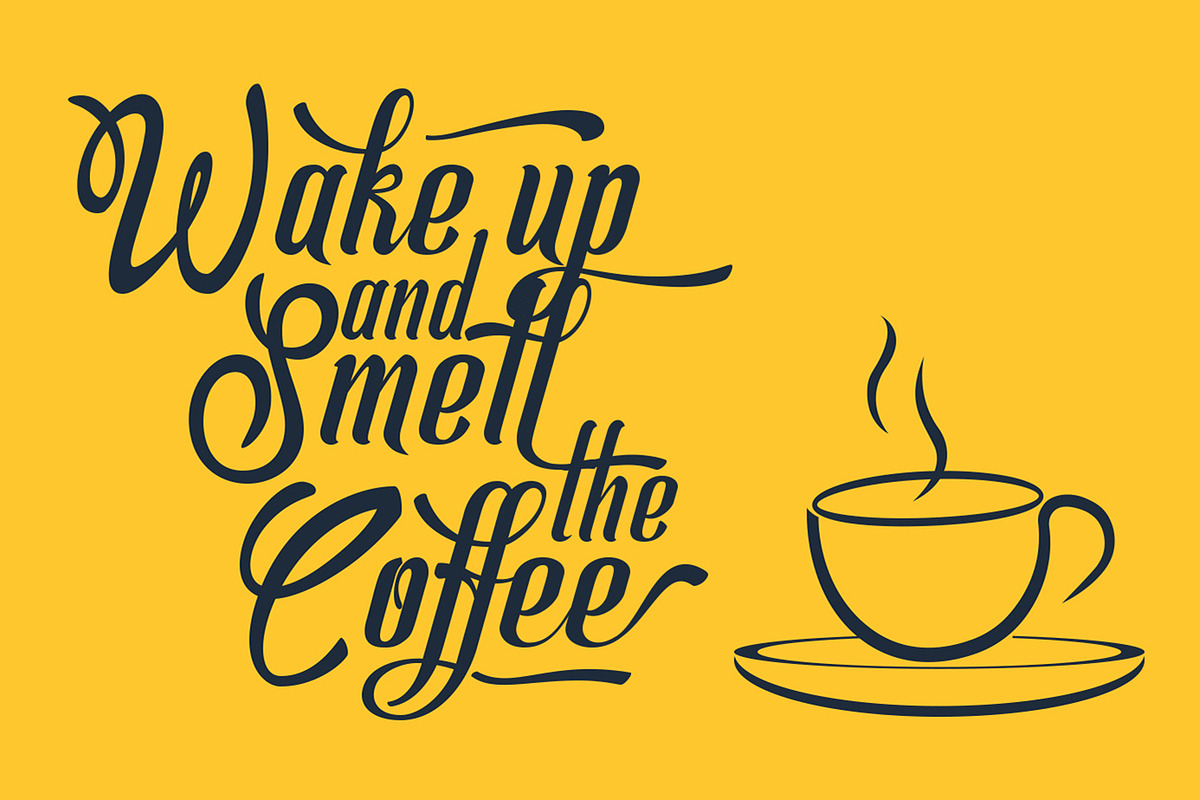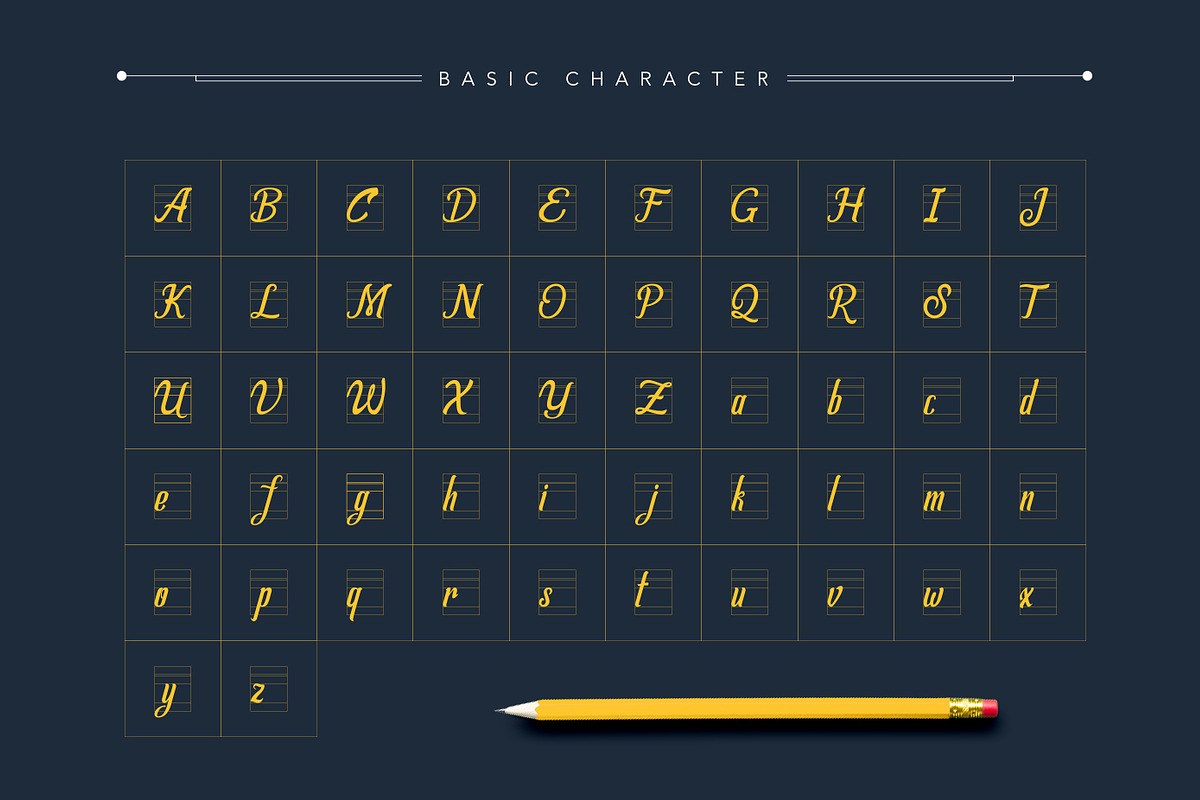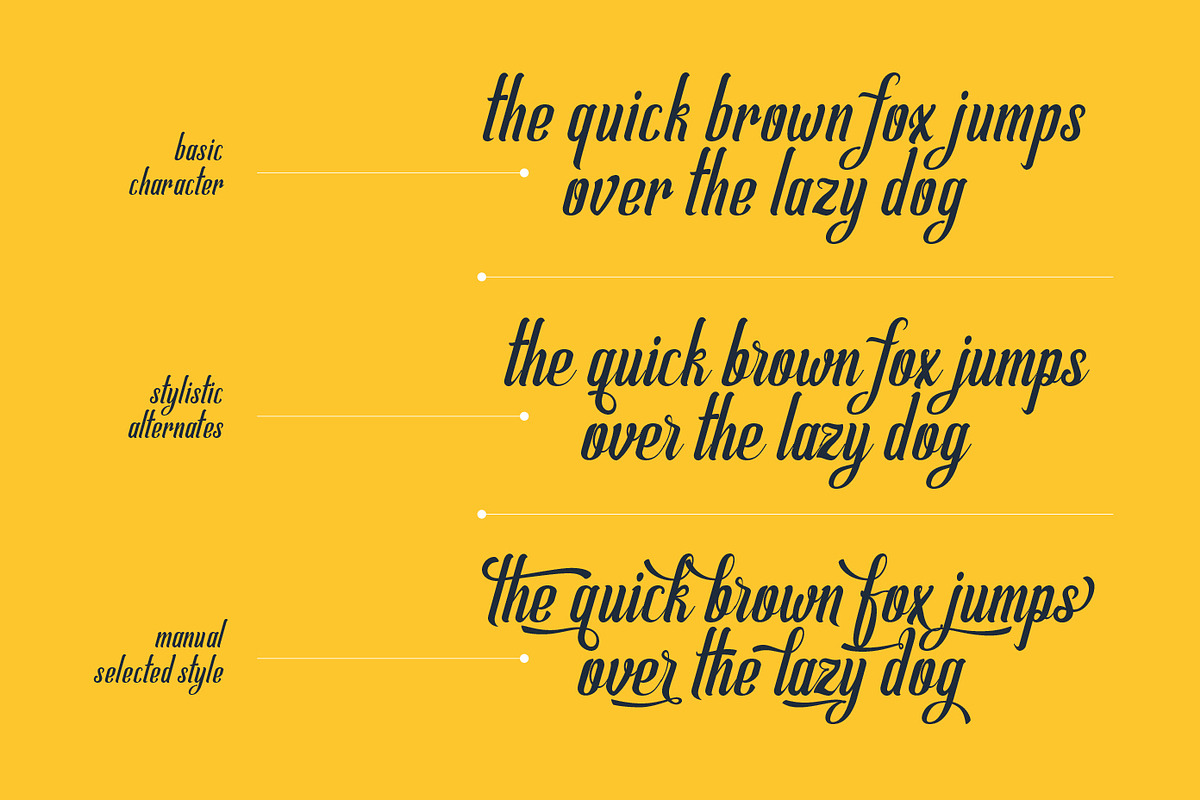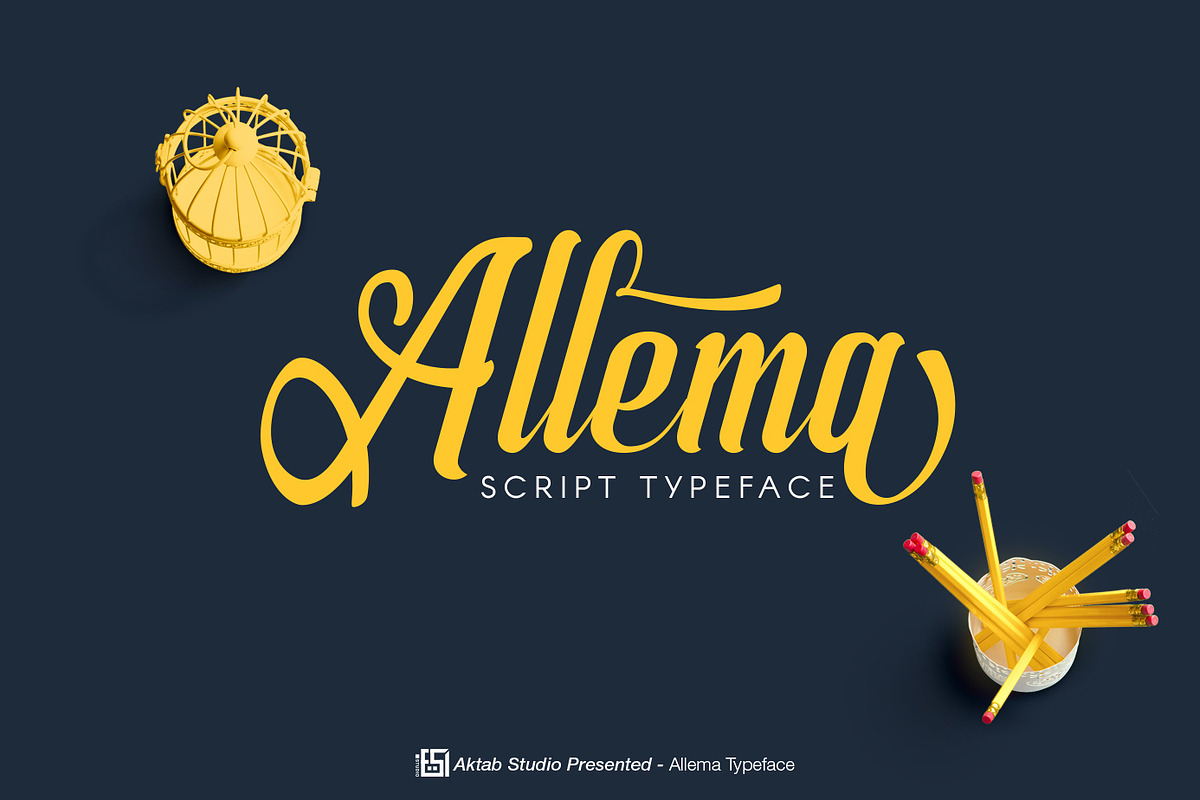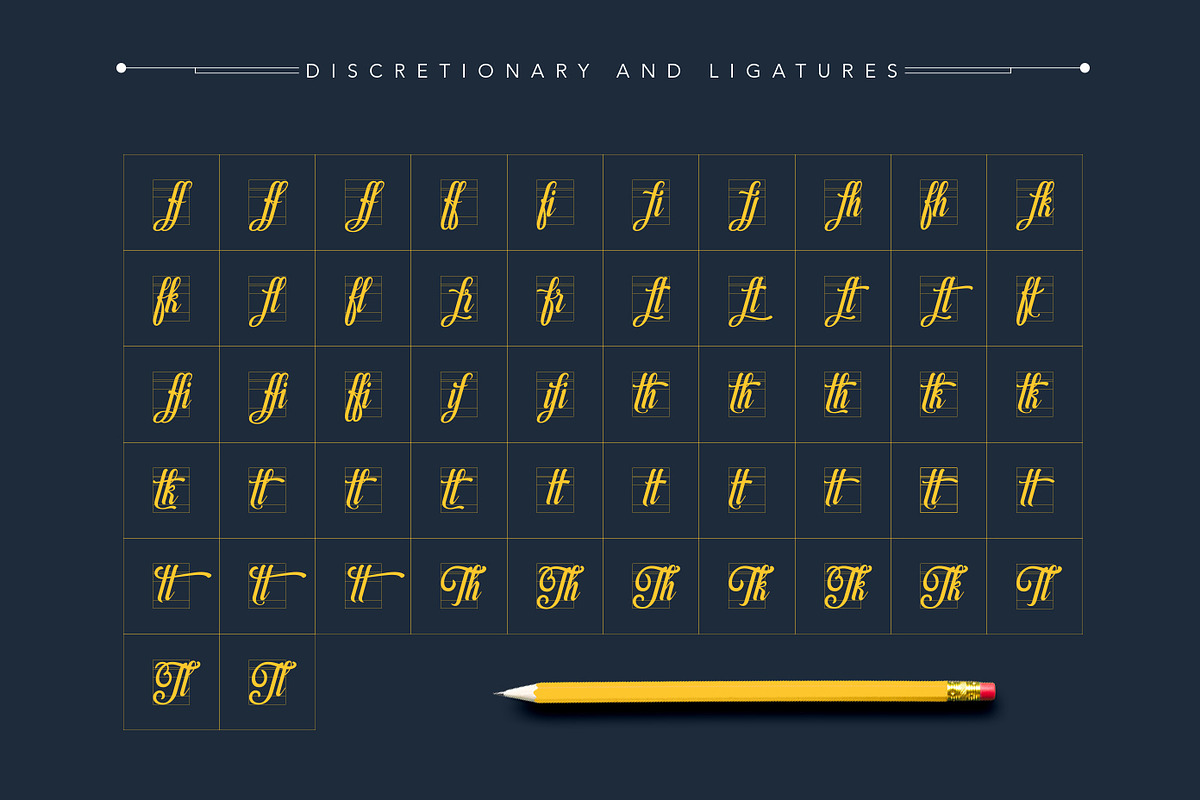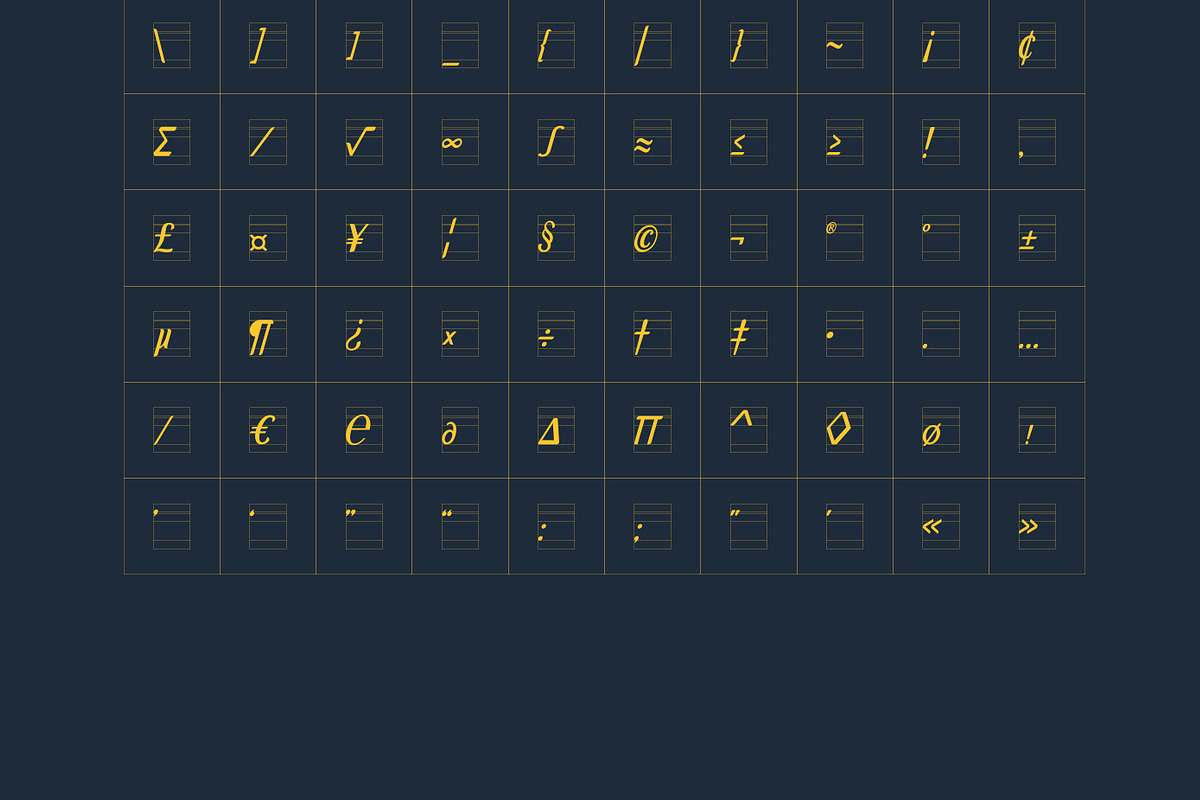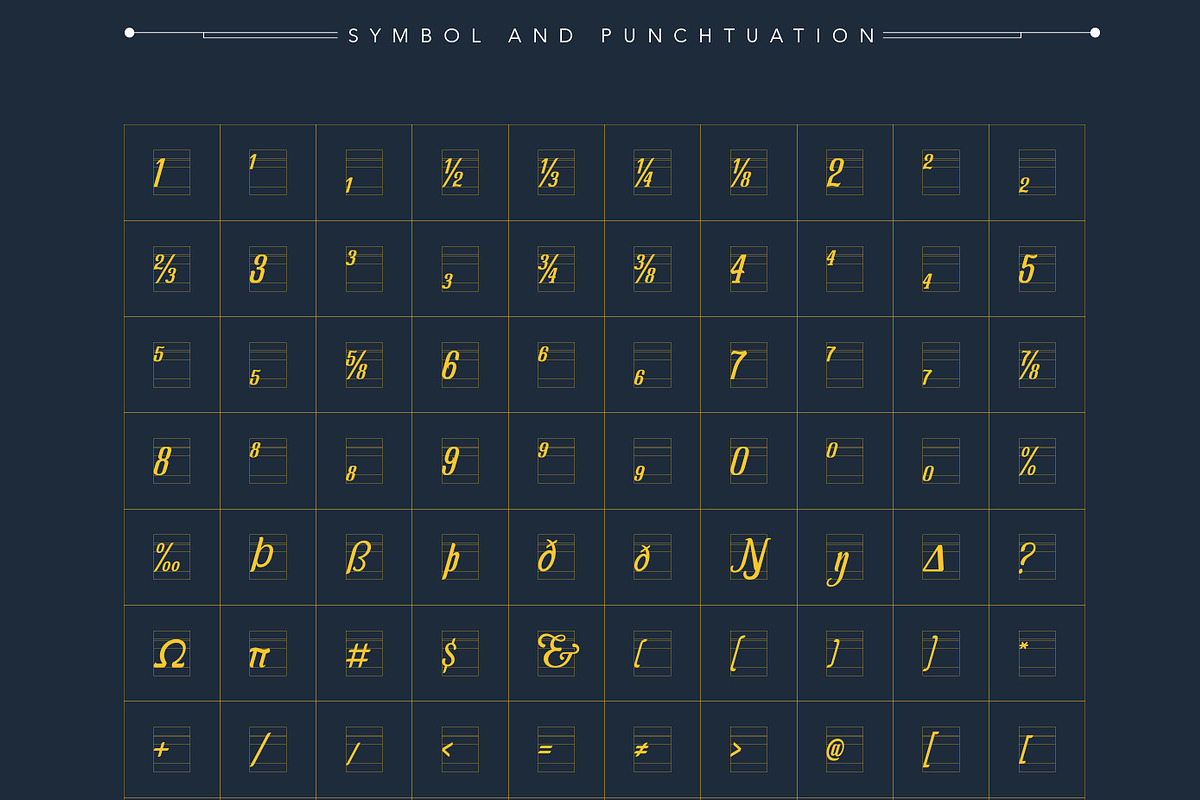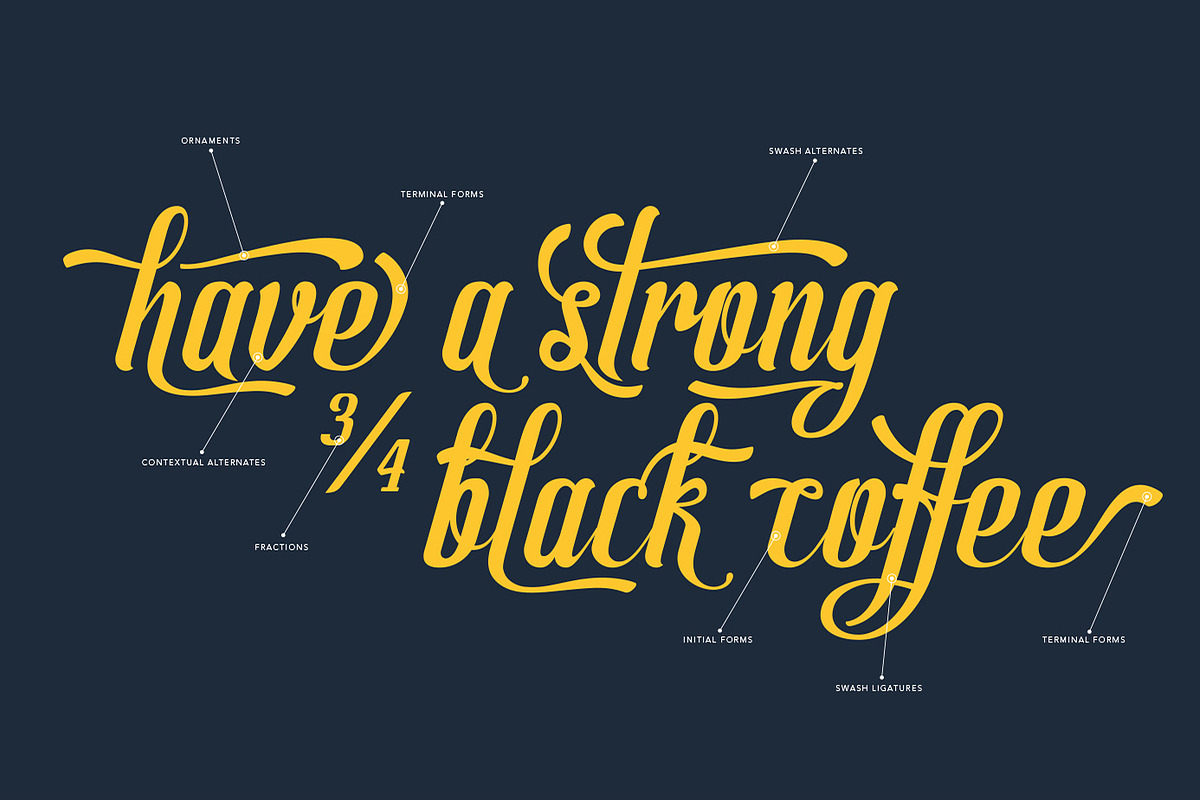
Allema Script Font
Allema Script Font by Aktab Studio is a font selected for branding, posters, packaging, typography.
- The Features of this fonts is: Standart ligatures Discretionary ligatures Contextual Alternates Stylistic Alternates Swash Fraction Stylisti
Why Allema Script Font is worth a look
Allema Script Font by Aktab Studio fits naturally into Branding, posters, packaging, typography.